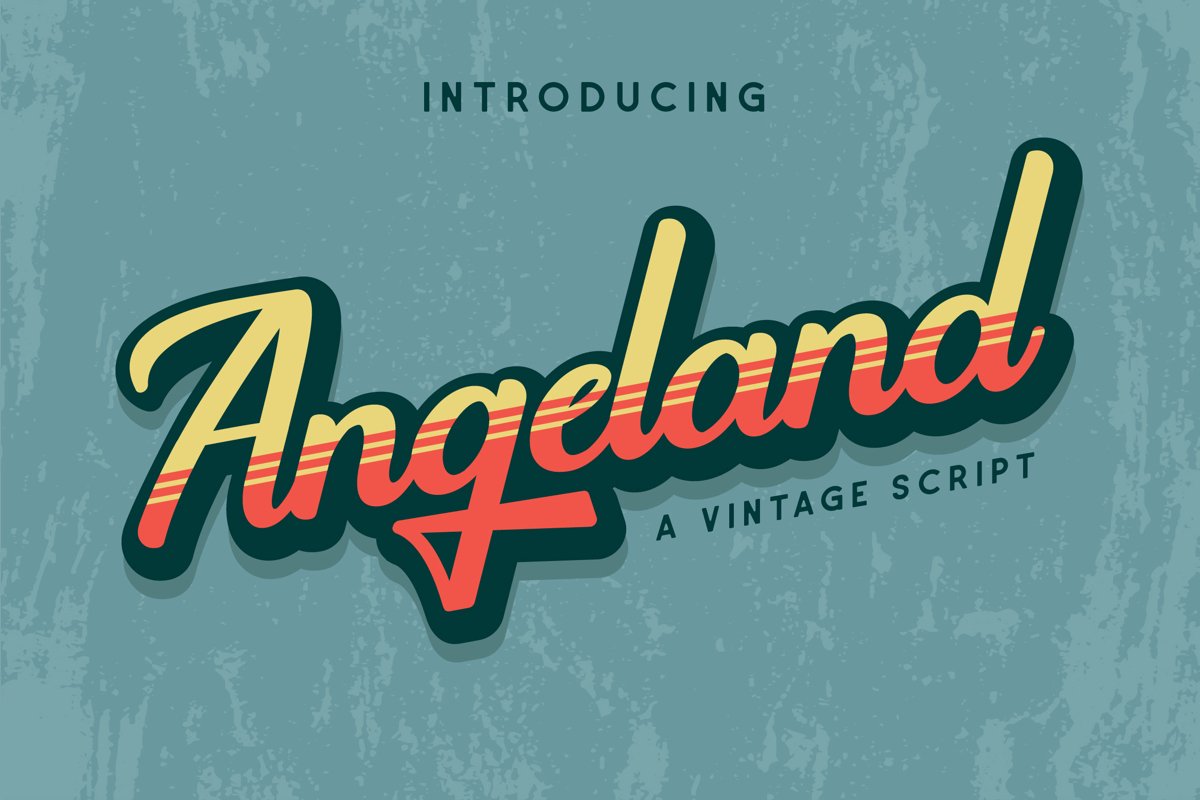
Angeland inspired by retro style and combination with script lettering style. We made with personality touch every single curve. It matches applies in some designs such as the logotype, poster, packaging, branding, quotes, badge and more custom design. The features uppercase, lowercase, numeral, punctuation & symbol.